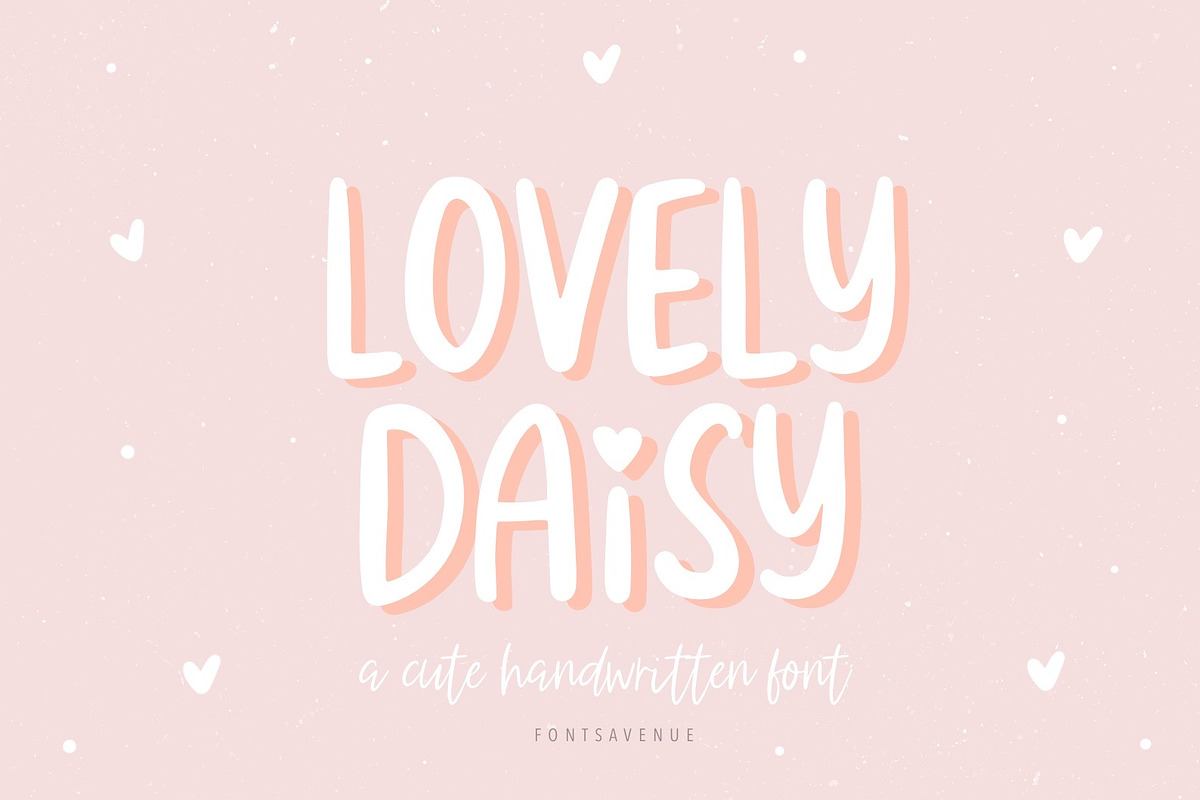
Lovely Daisy | Cute Sans Serif Font Free Download
Lovely Daisy – Cute Sans Serif Font Free Download is a cheerful and bubbly typeface designed to add charm and playfulness to your creative projects. Please note, you are required to purchase this font for commercial use. It is available for free download for testing and personal projects only.
With its rounded edges, soft curves, and friendly vibe, Lovely Daisy is perfect for children’s books, birthday invitations, kawaii-style branding, greeting cards, social media posts, and fun product packaging. It radiates positivity and sweetness while remaining clear and easy to read.